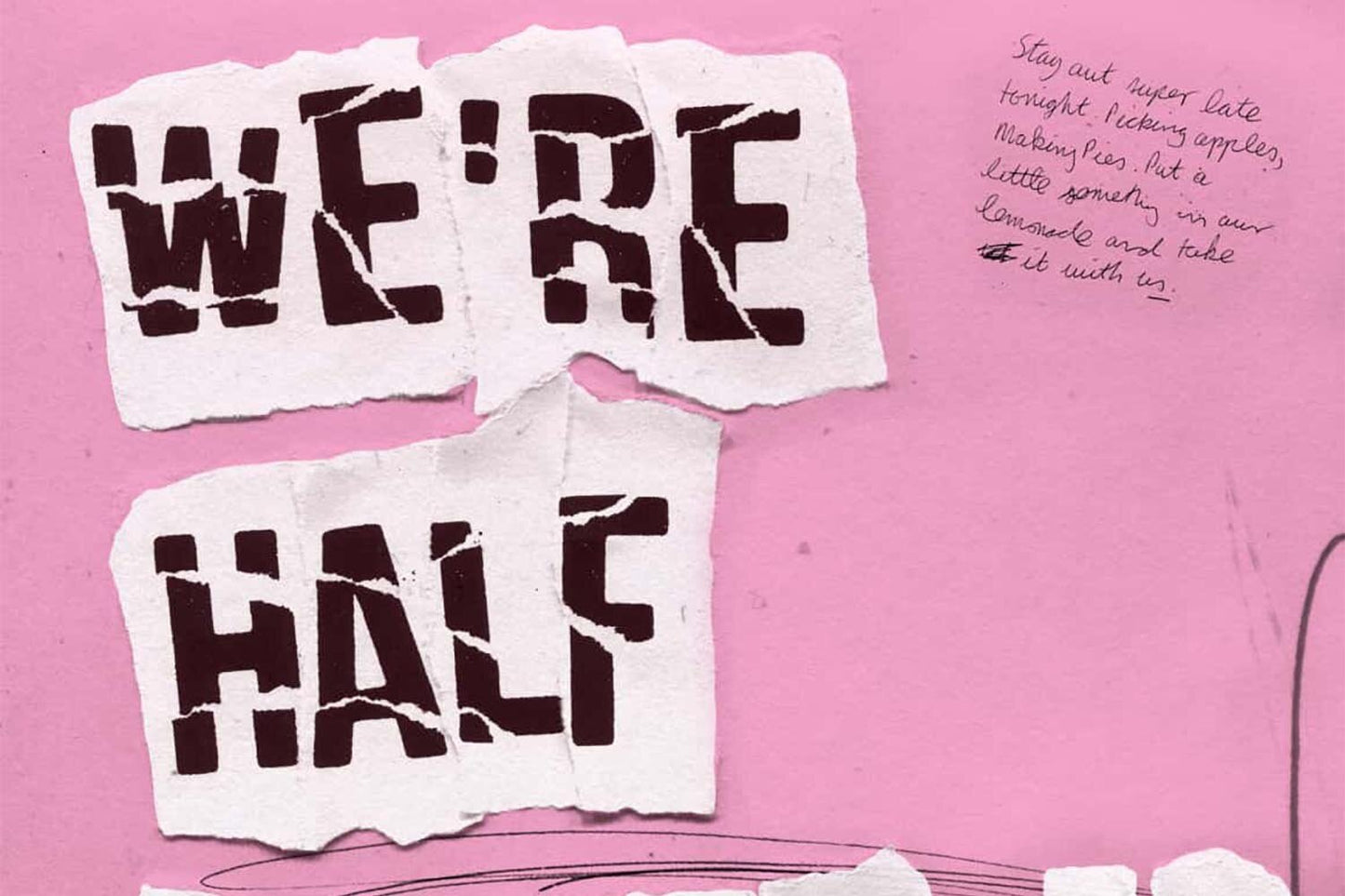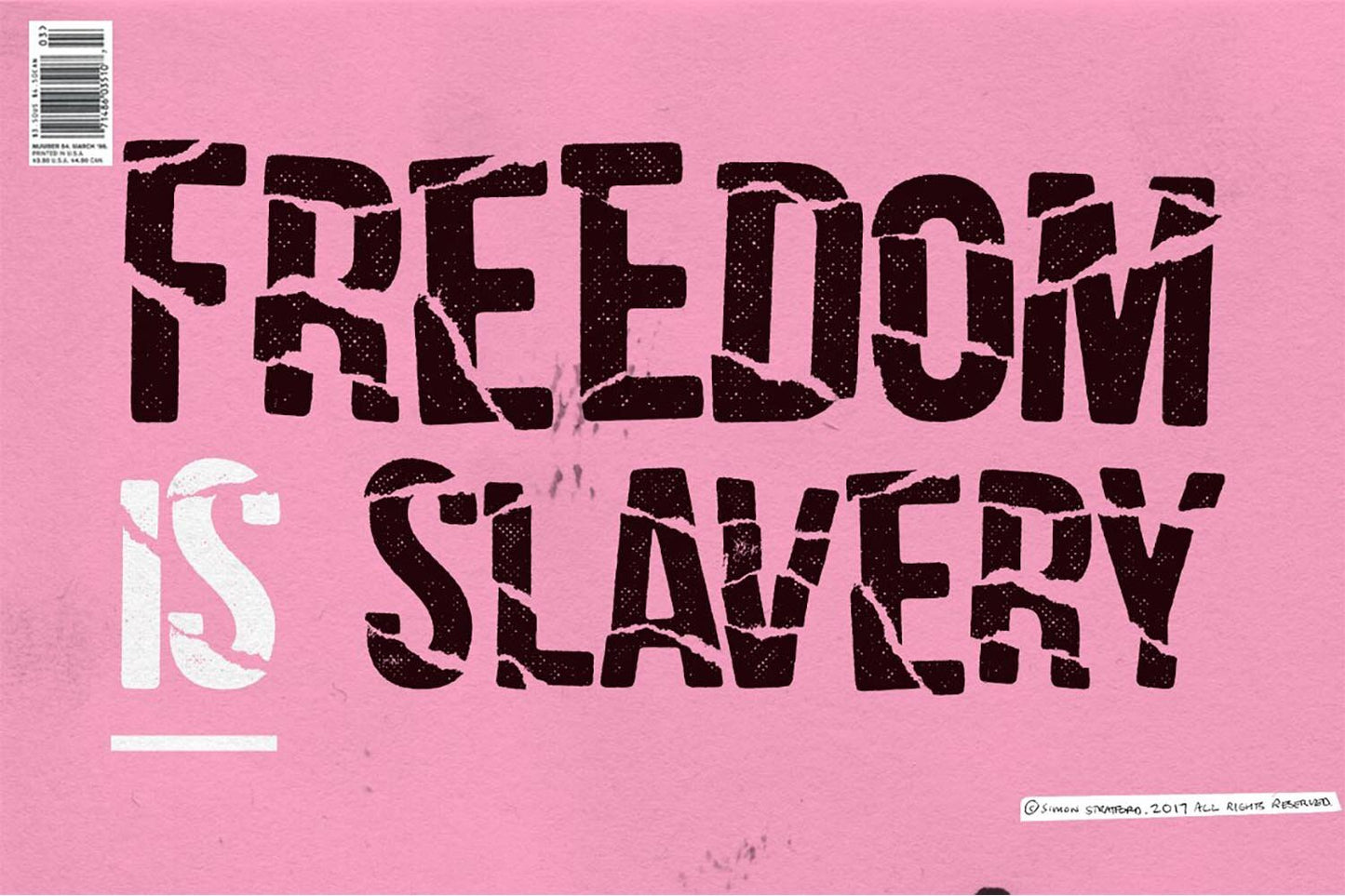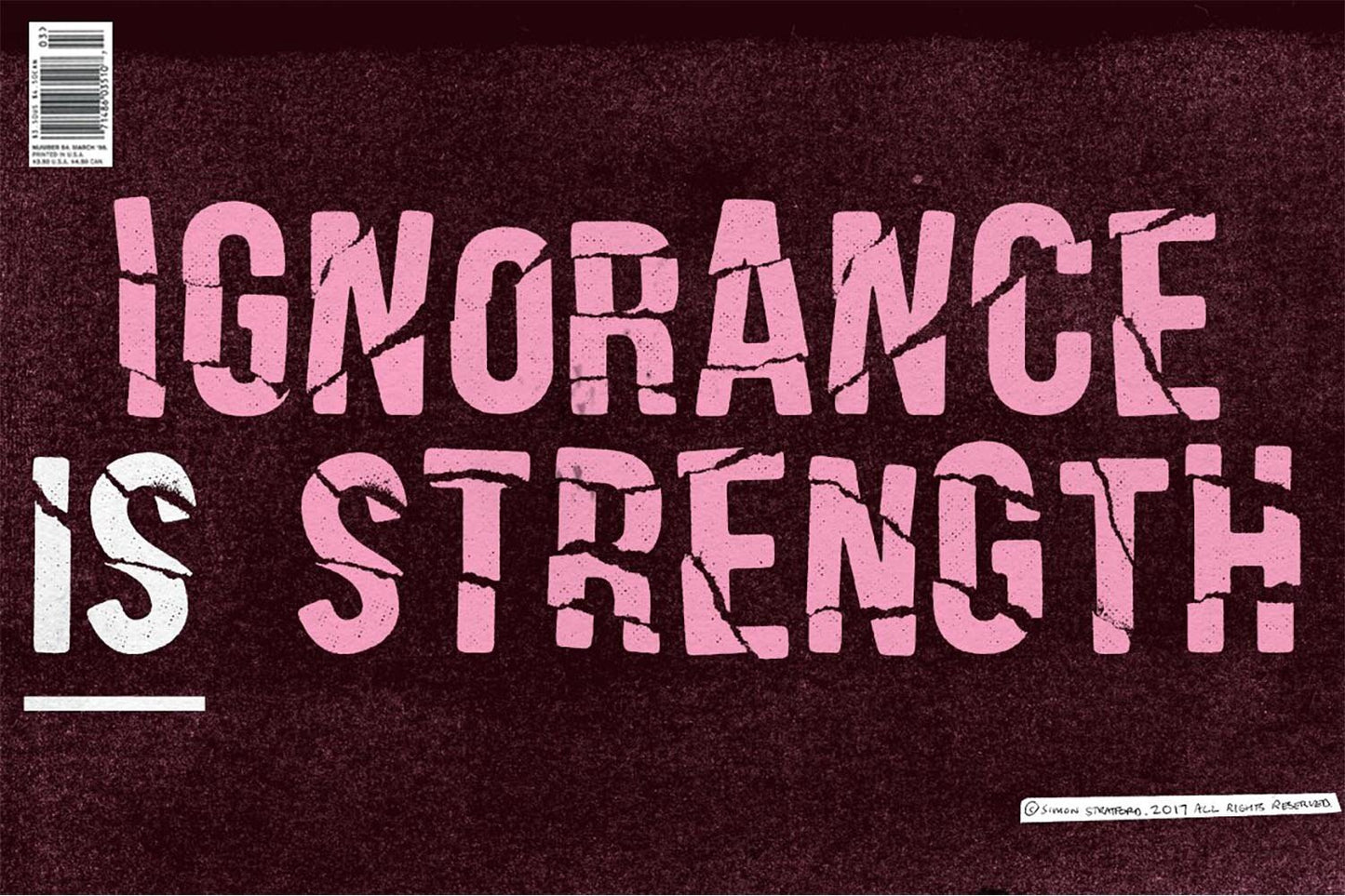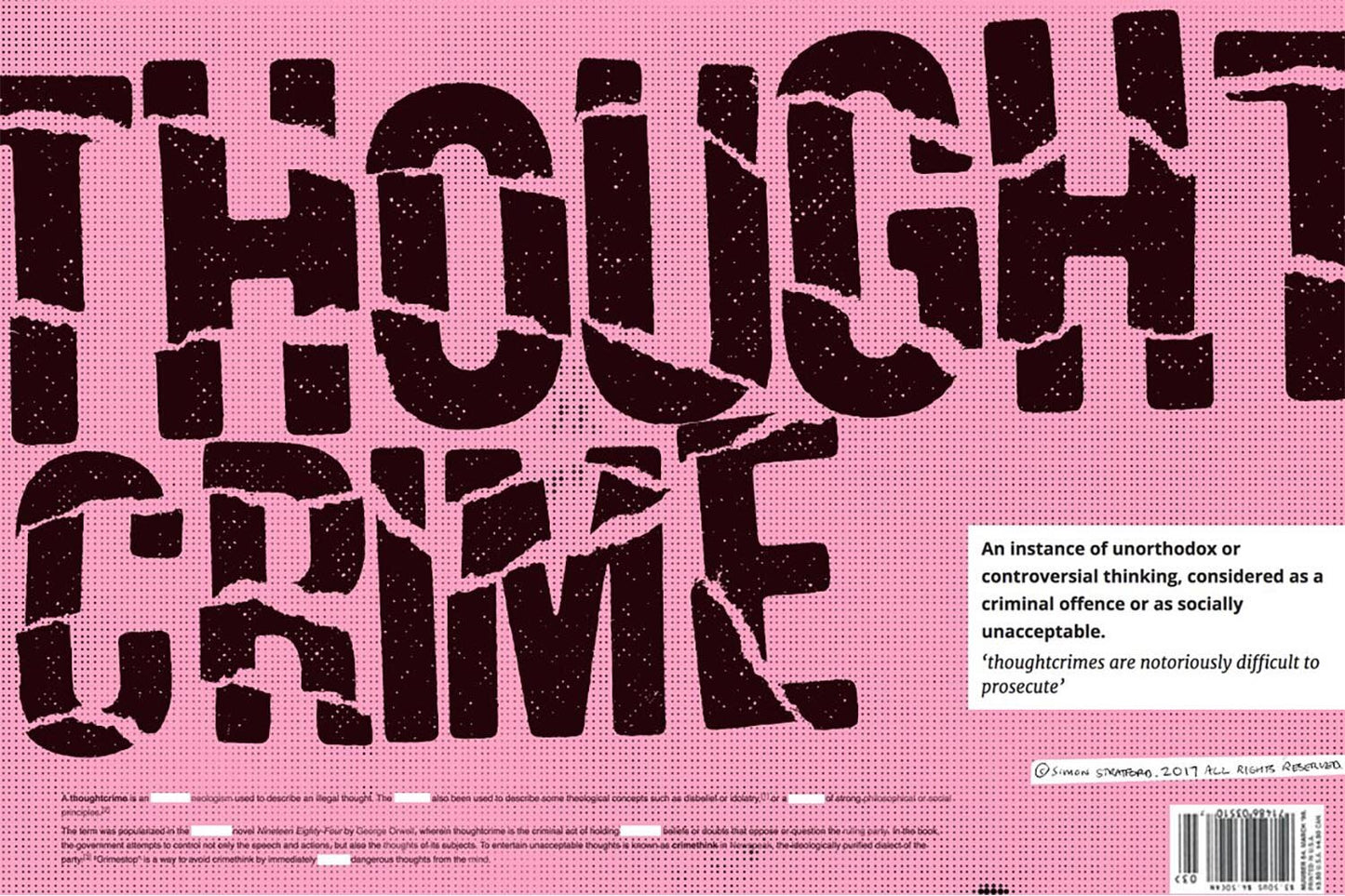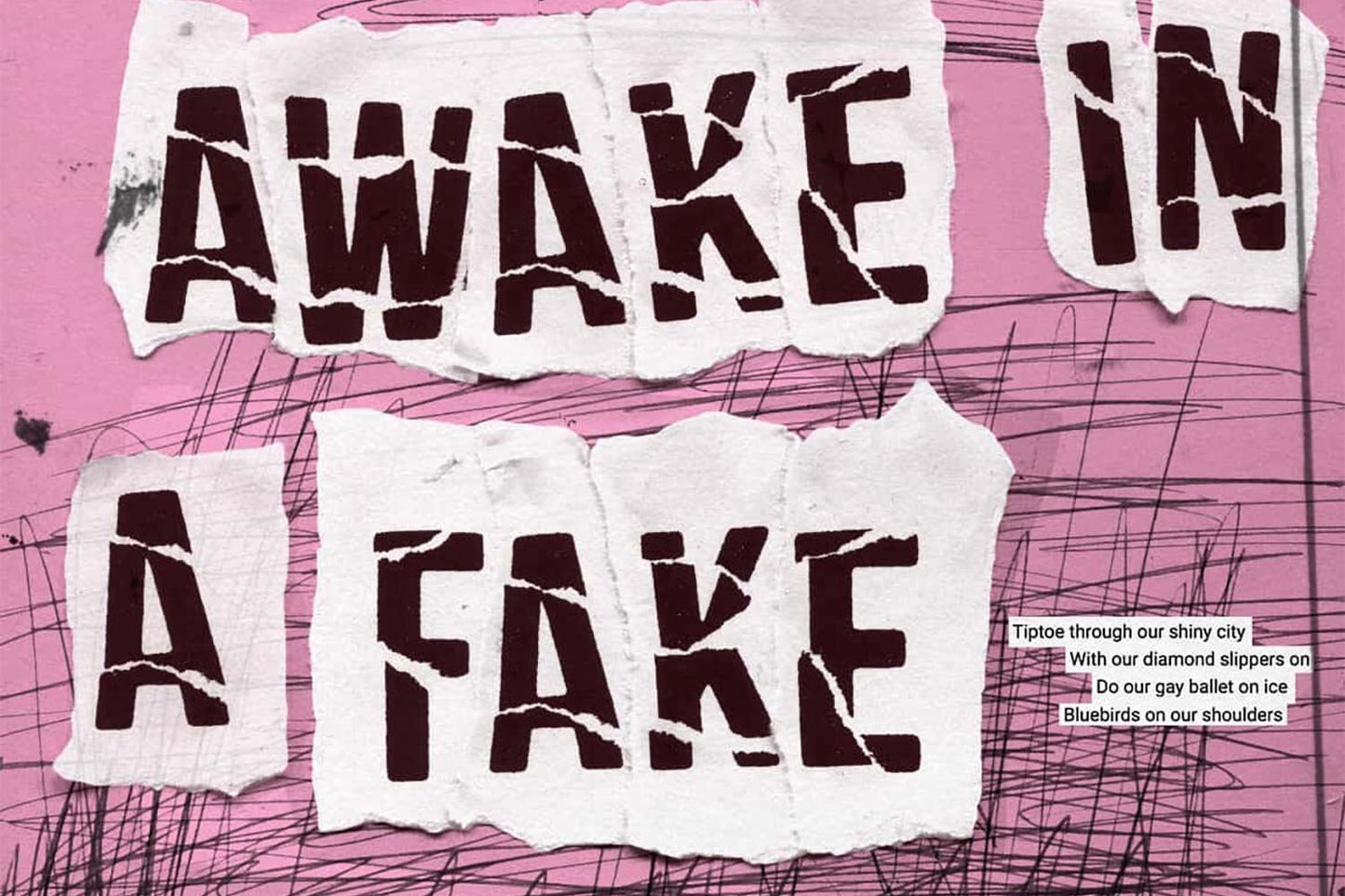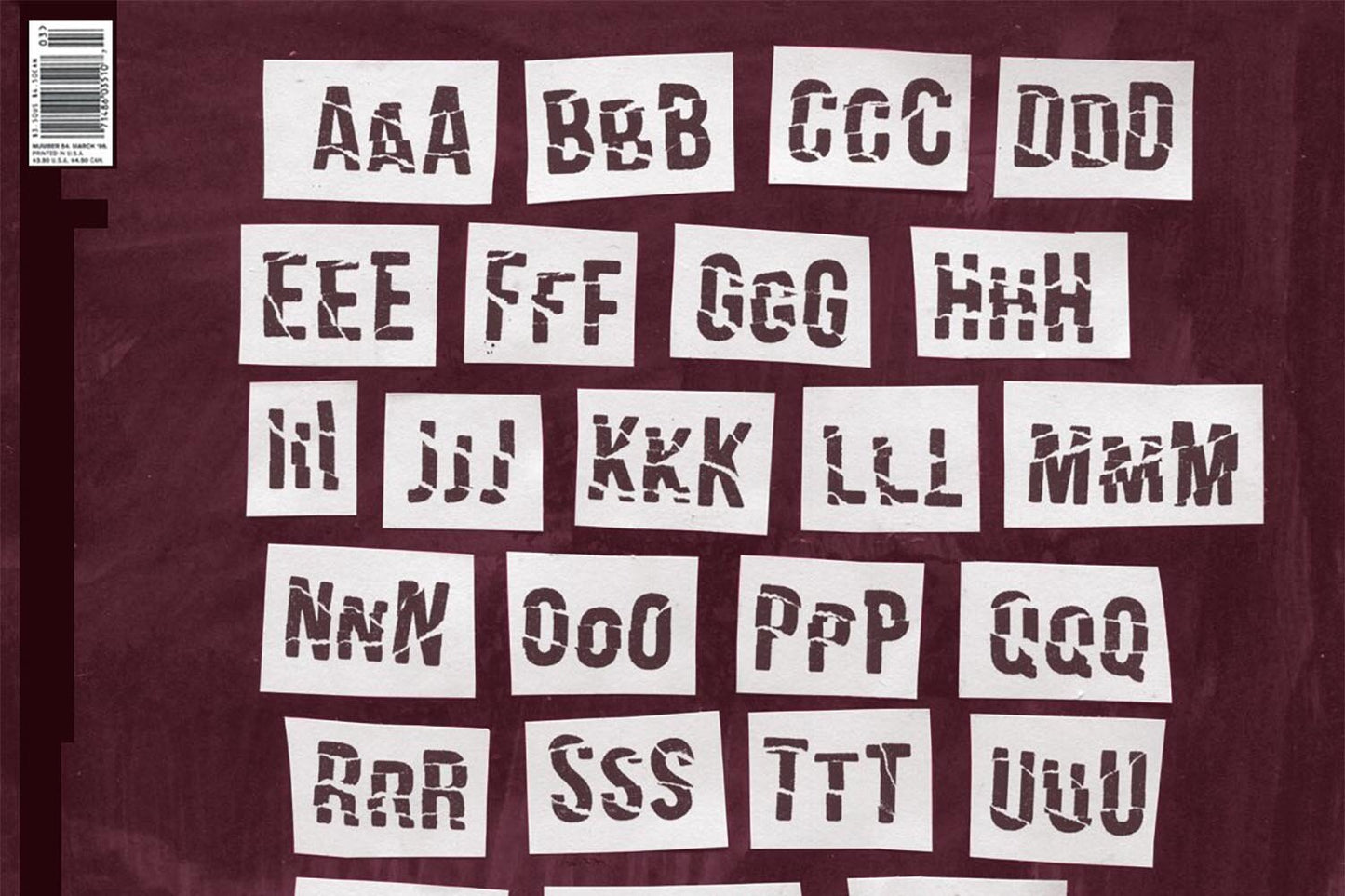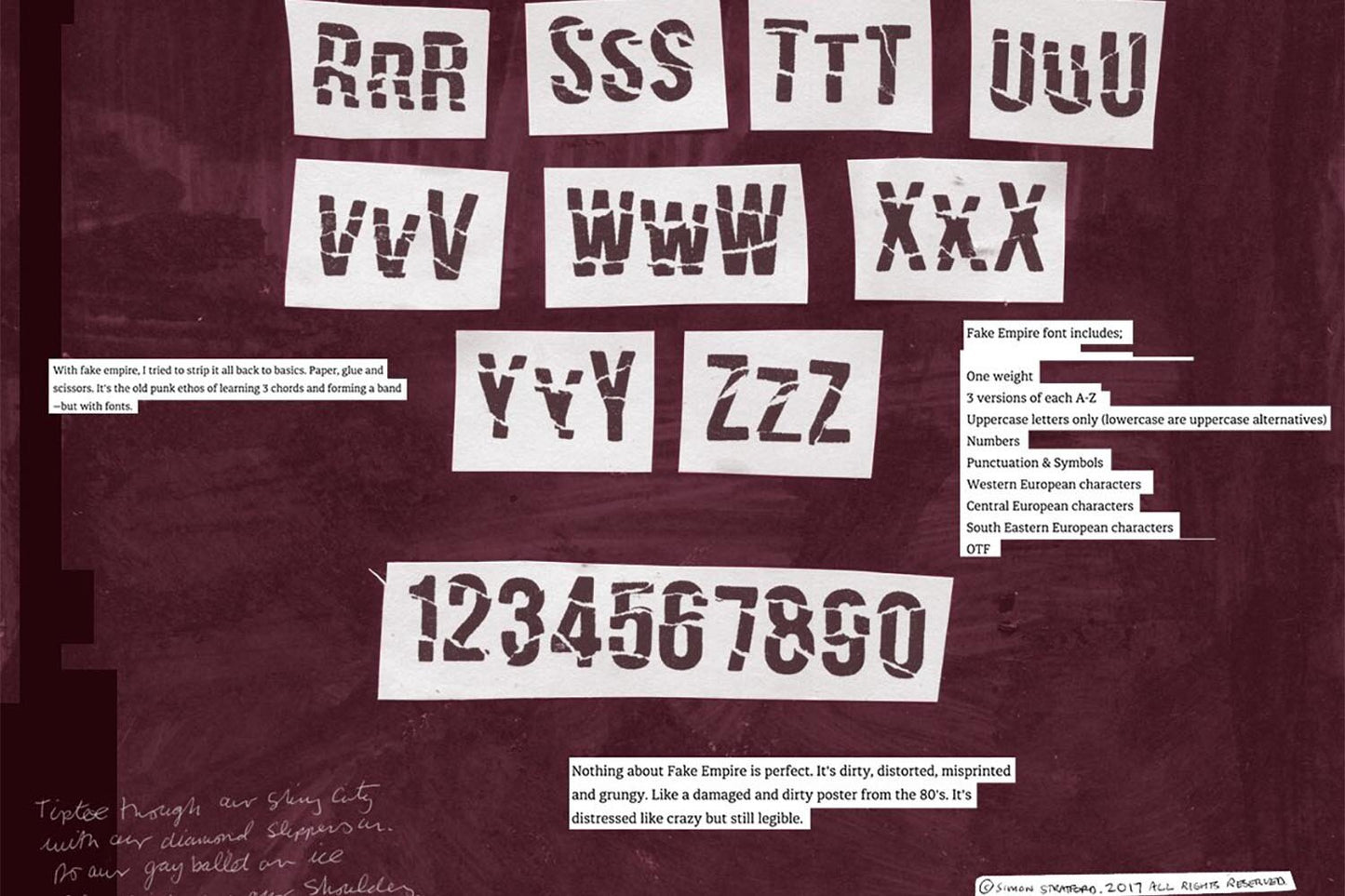
Fake Empire
About Fake Empire
Fake Empire is not perfect. It's faulty, flawed and defective. It celebrates the fact that it's crude, dirty and damaged goods—its a bit of a punk.
When making Fake Empire font, I was reading George Orwell's 1984 novel about a dystopian future (actually, it was an audiobook).
At the same time, Chump was president of the USA. It was impossible not to think that we were living in that dystopian future. The comparisons were astonishing. Media manipulation, authoritarianism, truth, reality, surveillance and populism.
Rant over, back to the Fake Empire font—Using nothing more than paper, glue and scissors, I've stripped it back to the basics—getting my hands dirty in the process.
The font is highly detailed and is best suited for headlines and display.
- Three versions of each A-Z